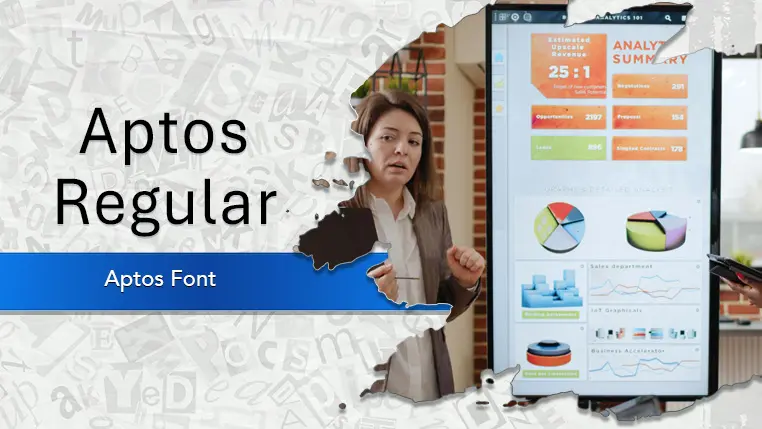
Aptos Font
The Aptos font family may be ideal for you if you enjoy working on an artistic design project. The lively, expressive look of this typeface, which was created by Microsoft, makes it ideal for Professional Documents, General Content Creation. Its clean lines and optimization for screen readability make it suitable for Websites, Web Applications and Mobile Apps. and other light-hearted visual projects.
Regular, Black Italic, Black, Bold Italic, Bold, Display Bold Italic, Display Bold, Display Italic, Display, Extra Bold Italic, Extra Bold, Italic, Light Italic, Light, Mono Bold Italic, Mono Bold, Mono Italic, Regular, Bold Italic, Bold, Italic, Regular, Semi Bold Italic, Semi Bold, Bold Italic, Bold, Italic, Regular are the twenty eight primary font styles of the Aptos font family. You may build dynamic, visually appealing text layouts with the distinct flair that each style offers. With crisp, readable lines and a relaxed tone.